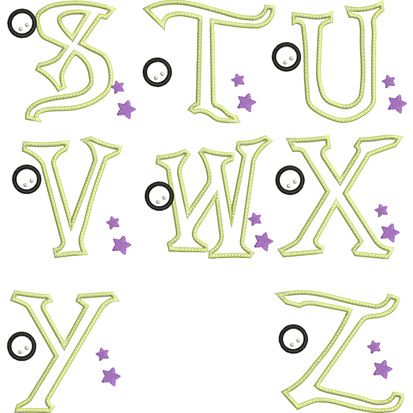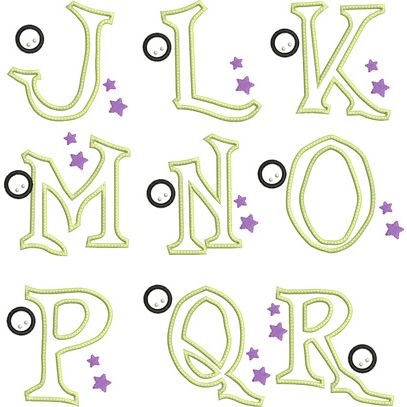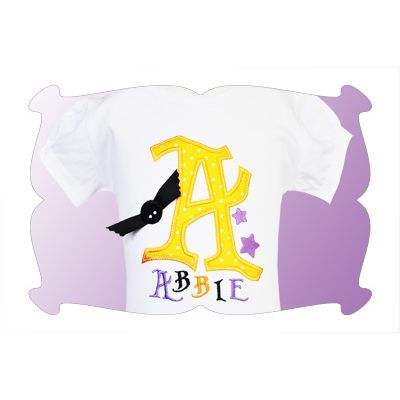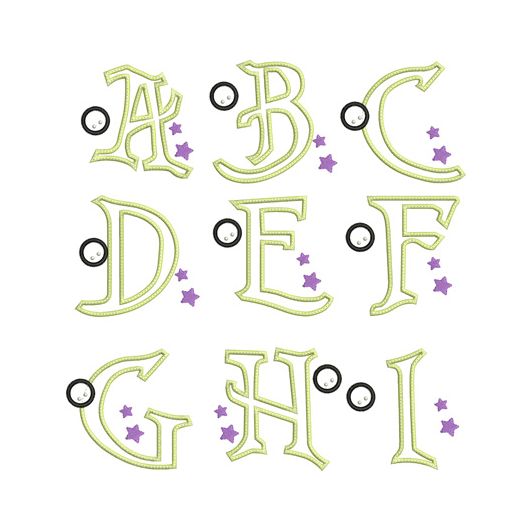
Haunted Bat Satin Stitch Applique Monogram Embroidery Font
Haunted Bat Applique Font
A fun and "spooktacular" font just in time for Halloween!
The bat wings are made with ribbon, we'll show you how in the step by step instructions!
Upper Case letters A thru Z included.